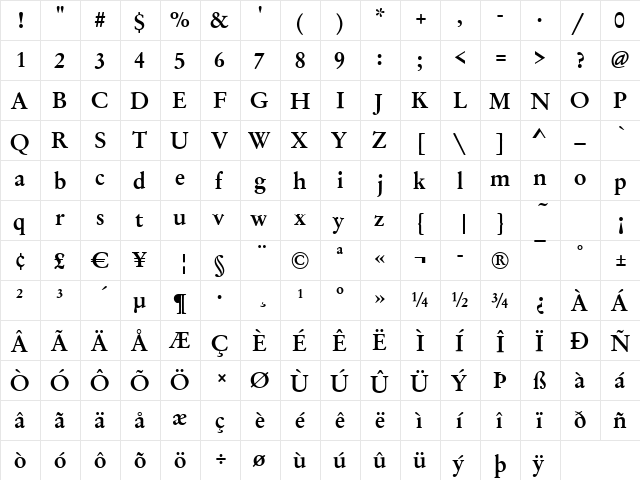
Garfeld-Original Bold
Design Context for Garfeld-Original Typeface
Garfeld-Original is a composed and adaptable typeface that performs quietly and consistently across a wide range of design contexts. Its bold stroke weight gives it real presence on the page.